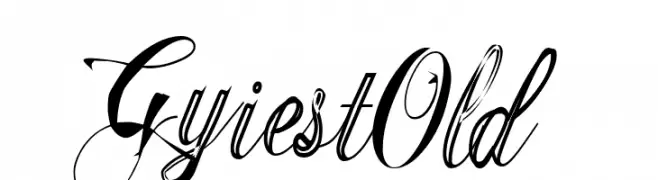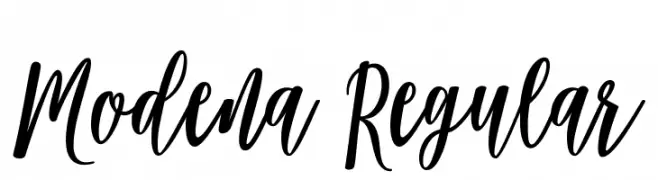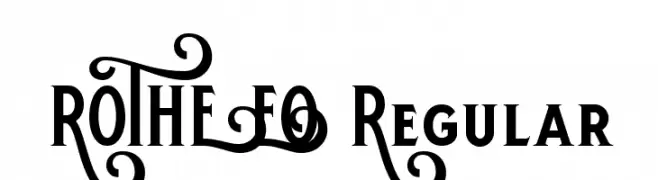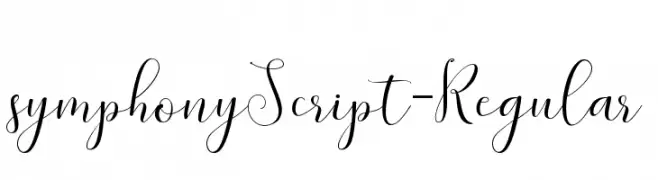
An elegant script font with flowing, ornate letterforms and intricate swashes.
An elegant script font with flowing, cursive letterforms and intricate swashes.
A flowing, cursive font with elegant loops and swashes, perfect for creative projects.
An elegant script font with flowing, cursive letters and graceful swashes.
A bold, decorative font with elegant swashes and a classic-modern appeal.
A flowing, cursive script font with elegant loops and swashes.
A dynamic and elegant script font with smooth curves and playful swashes.
An elegant and decorative script font with intricate swashes and flourishes.
A graceful and elegant script font with intricate loops and swashes.
A sophisticated, slanted script font with elegant loops and swashes.